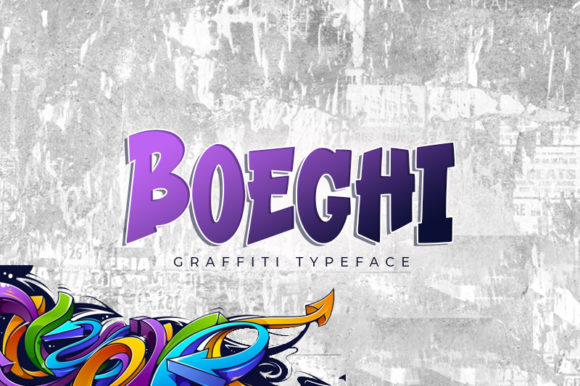
Introducing Boeghi Font: The Ultimate Display Font for Fun and Playful Designs
Are you tired of using the same old fonts for your designs? Look no further! Boeghi Font is here to shake things up with its cool, bold, and incredibly fun looking display font. This chunky lettered font is perfect for adding a touch of playfulness and authenticity to any design, making it ideal for children activities, school projects, and more.
The Perfect Blend of Playfulness and Authenticity
Boeghi Font embodies the perfect blend of playfulness and authenticity, making it a must-have for designers and crafters looking to add some excitement to their work. Its bold and chunky letters are sure to make any design come alive, whether it’s a colorful children’s activity sheet, a fun school project, or a playful poster.
What Makes Boeghi Font So Special?
So, what makes Boeghi Font so special? Here are just a few reasons why designers and crafters are falling in love with this amazing display font:
- Unique and Eye-Catching Design: Boeghi Font features a one-of-a-kind design that’s sure to grab attention. Its chunky letters and playful vibe make it perfect for designs that need to stand out.
- Perfect for Children and School Projects: Boeghi Font is ideal for children’s activities, school projects, and educational materials. Its fun and playful design is sure to engage young minds and make learning more enjoyable.
- Versatile and Easy to Use: Boeghi Font is incredibly versatile and easy to use, making it perfect for a wide range of design applications, from posters and flyers to digital graphics and more.
- Authentic and High-Quality: Boeghi Font is a high-quality font that’s designed to deliver exceptional results. Its authentic design ensures that your designs look professional and polished.
How to Use Boeghi Font in Your Designs
Using Boeghi Font in your designs is easy! Here are a few tips to get you started:
- Pair it with Other Fonts: Boeghi Font pairs perfectly with other fonts, making it easy to create visually appealing designs. Try pairing it with a clean sans-serif font for a bold and modern look.
- Use it for Headings and Titles: Boeghi Font is perfect for headings and titles, where its bold and chunky design can really shine.
- Add Color and Texture: Boeghi Font looks amazing with color and texture! Try adding a bright color or texture to your design to make it pop.
Why Designers and Crafters Love Boeghi Font
Designers and crafters love Boeghi Font for its unique and playful design. Here are just a few reasons why:
- It’s Fun and Engaging: Boeghi Font is the perfect way to add some fun and engagement to your designs. Its playful design is sure to capture the attention of your audience.
- It’s Versatile: Boeghi Font is incredibly versatile, making it perfect for a wide range of design applications.
- It’s High-Quality: Boeghi Font is a high-quality font that’s designed to deliver exceptional results.
In conclusion, Boeghi Font is an amazing display font that’s perfect for designers and crafters looking to add some fun and playfulness to their work. Its unique and eye-catching design, versatility, and high-quality make it a must-have for any design project. So why wait? Download Boeghi Font today and start creating fun and engaging designs that will capture the attention of your audience!